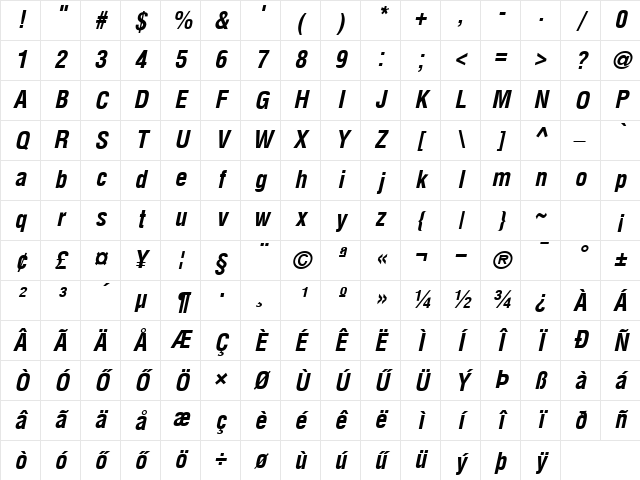
Complete HHelvetica Condensed Bold Italic glyph index. Displaying only characters natively supported by HHelvetica Condensed Bold Italic font.
HHelvetica Condensed is a composed and adaptable typeface that performs quietly and consistently across a wide range of design contexts. The slanted form adds forward momentum and visual energy. Its bold stroke weight gives it real presence on the page. Its narrow stance lets it pack a punch even in space-constrained designs.